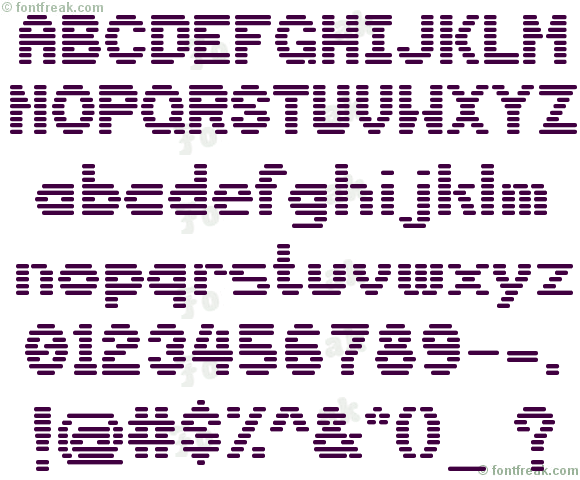
DS-Terminal
The DS Terminal font, created by Dusit Supasawat in 1999, is a distinctive display typeface that captures the essence of retro computer aesthetics. This shareware font features a unique blend of geometric shapes and pixelated characteristics, making it a standout choice for various design projects. With a consistent stroke weight and minimal contrast, the DS Terminal font conveys a modern yet nostalgic vibe, reminiscent of classic terminal interfaces. Its spacing is thoughtfully designed to ensure readability while maintaining a tech-inspired look, perfect for digital applications.
Best suited for a variety of creative uses, the DS Terminal font excels in areas such as video game branding, tech-related graphics, and digital art projects. Its bold, blocky appearance makes it ideal for eye-catching movie posters and promotional materials that require a contemporary, tech-savvy flair. Additionally, this font can be effectively utilized in website designs, particularly for blogs or platforms focused on technology and innovation. Graphic designers and content creators will find this typeface an invaluable asset in their toolkit, especially when aiming to evoke a sense of nostalgia or a futuristic aesthetic.
The target audience for the DS Terminal font includes graphic designers, small business owners, and content creators looking for a unique typeface that stands out in a crowded market. The font’s distinctive style and versatility allow it to adapt to various themes, making it an excellent choice for projects that require a touch of modernity and innovation. Overall, the DS Terminal font is a compelling option that combines retro charm with contemporary design sensibilities, making it a worthy choice for those seeking a DS Terminal font free download for their next creative endeavor.